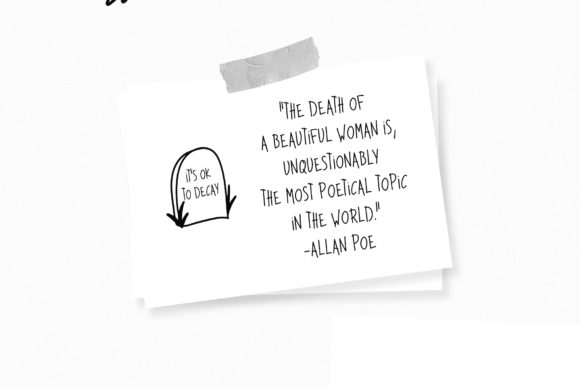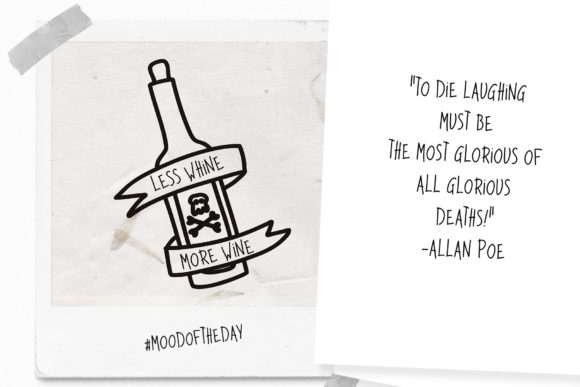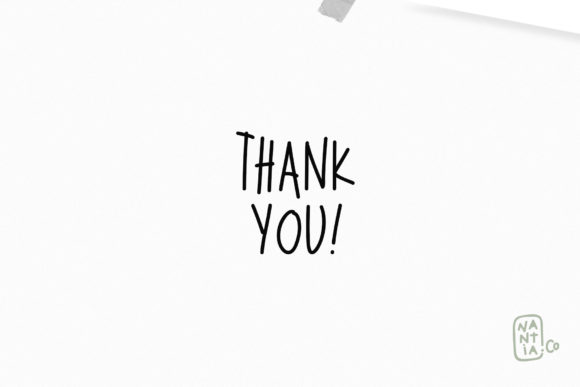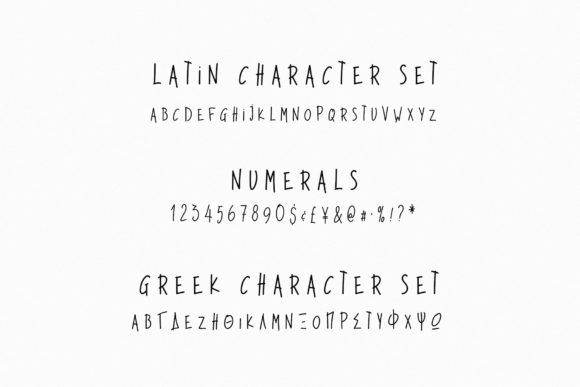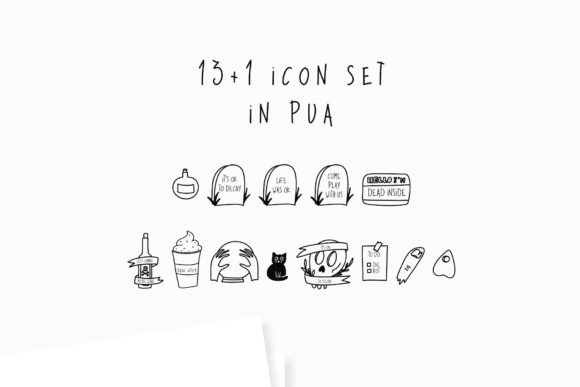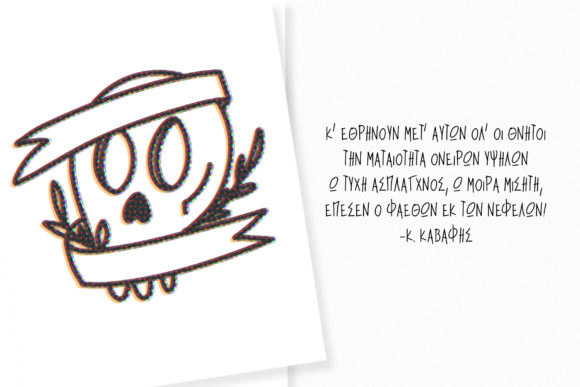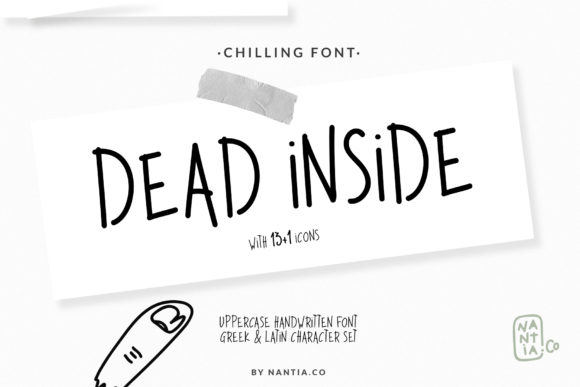
Dead Inside Font
About Dead Inside Font
Dead Inside is a playful and simple handwritten font that perfectly resembles a kid’s handwriting. On top of it, it features a fun set of icons!